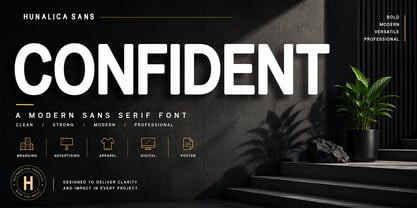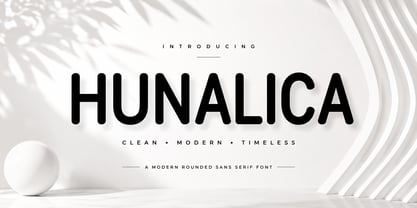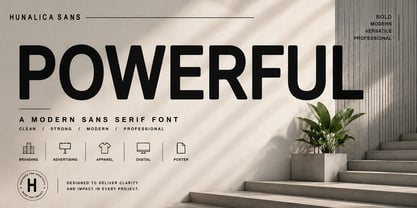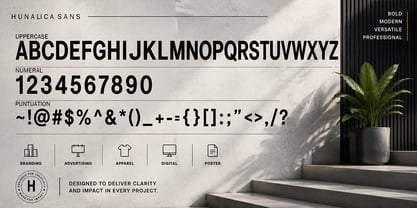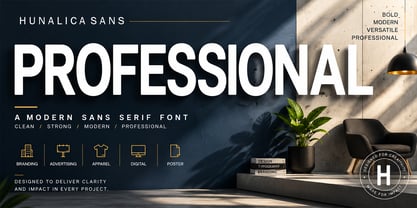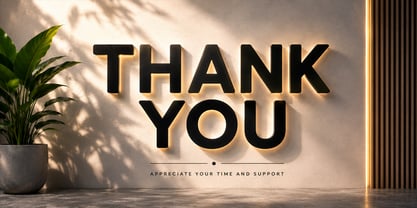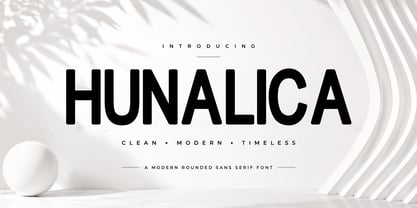
Hunalica
The Hunalica Font Family was designed by Teuku Saifullah and published by Shape Studio. Hunalica contains 4 styles and family package options. More about this family
Hunalica is a modern condensed sans serif font designed to deliver strength, clarity, and professionalism. Featuring clean lines, balanced proportions, and a contemporary appearance, this typeface is perfect for branding, advertising, posters, packaging, apparel, logos, headlines, and digital projects.
Its bold and confident character makes every design stand out while maintaining excellent readability. Whether you're creating corporate branding, modern marketing materials, fashion campaigns, or impactful typography layouts, Blackstone Sans provides a versatile and timeless solution.
Features: • Uppercase Letters • Numerals & Punctuation • Multilingual Support • Clean and Modern Design • Professional Appearance • Easy to Read • Perfect for Branding and Headlines
Ideal for: Branding, Advertising, Posters, Packaging, Fashion, Apparel, Logos, Editorial Design, Social Media Graphics, Web Design, and Corporate Identity.